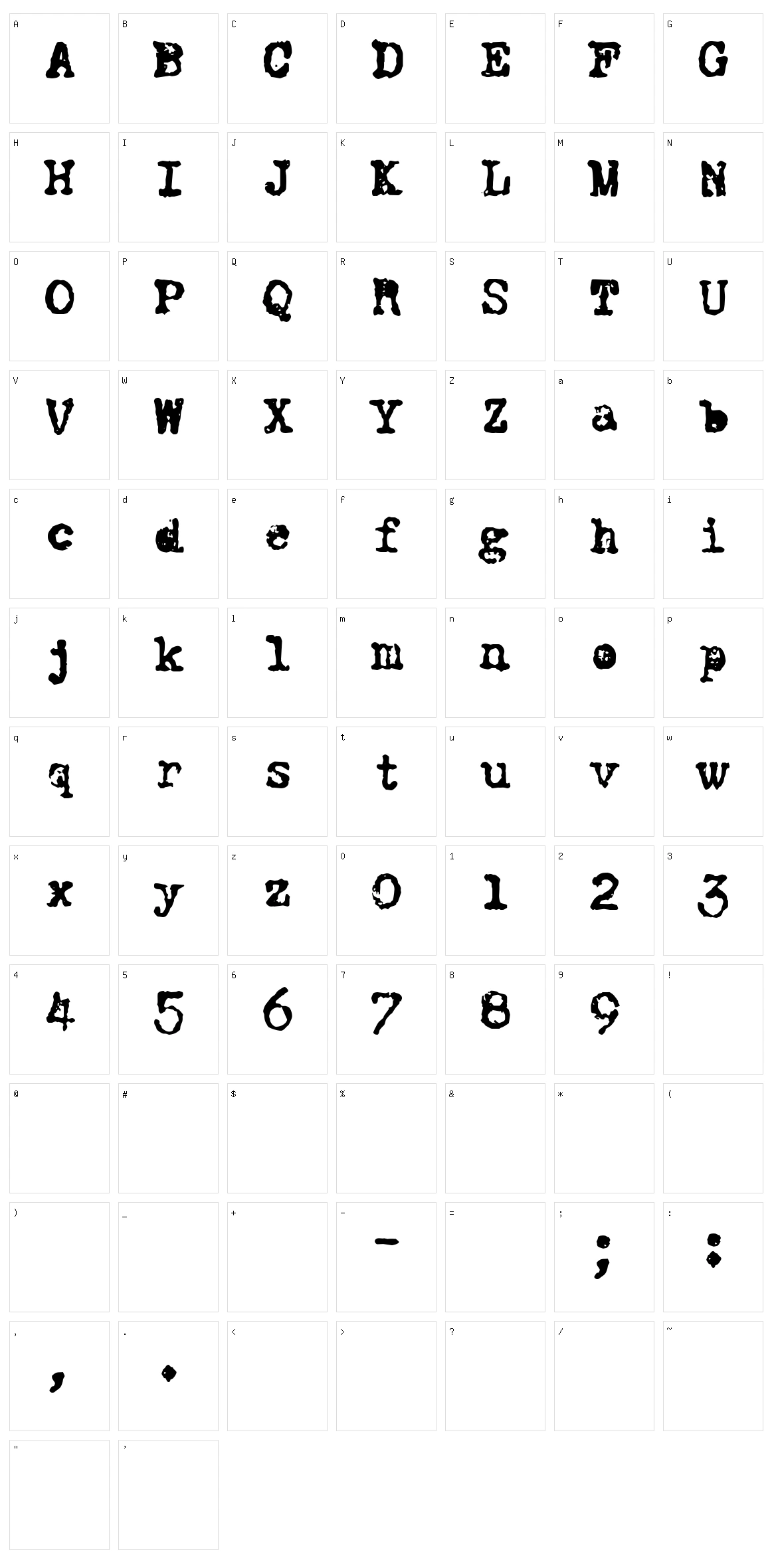
The free font CF World at War is carefully designed by Cloutierfontes, showcasing a thoughtful balance of creativity and usability and falls under the Typewriter font style. When you download the ZIP file, it contains only 344.93 KB of font files, making it lightweight and quick to download. Please review the license details below to understand permitted usage and distribution rights. If license information is not available, we recommend using this font for personal projects only or contacting the author directly for commercial usage permissions.